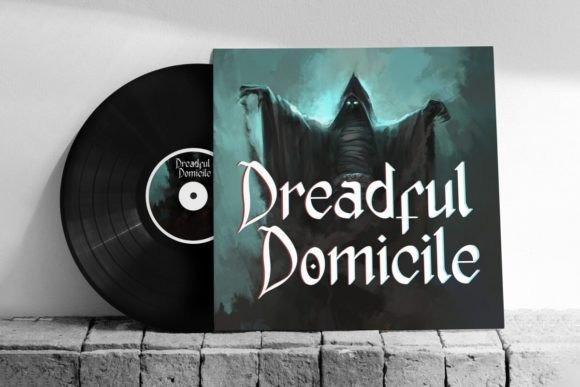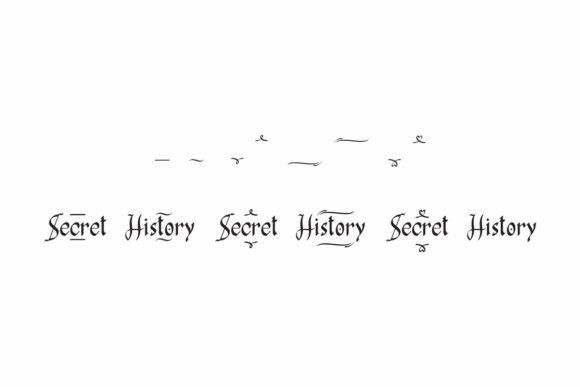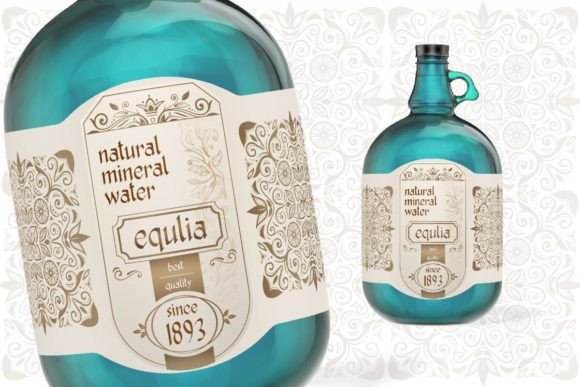
Secret History Font
Secret History Font is a unique medieval gothic font, inspired by several classic movies and games. This font has a classic European style but the font also looks like an Arabic-influenced style. The font will amaze your design art and it’s suitable for many industries, such as accessories, antiques, café, events, fashion, festivals, gift wrapping, handicrafts, magic shows, movies, music, etc.